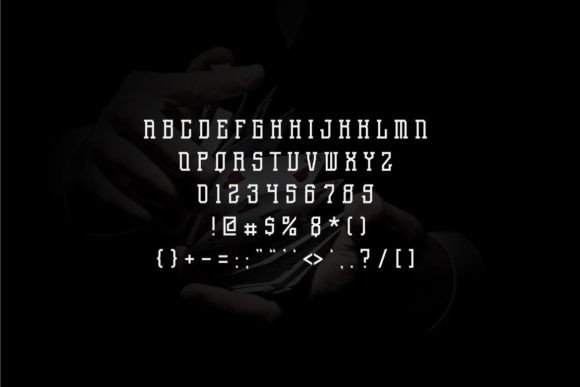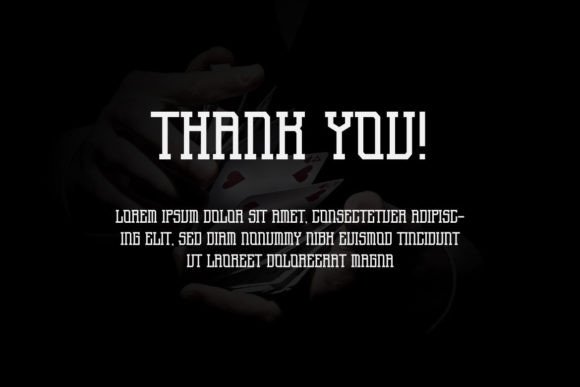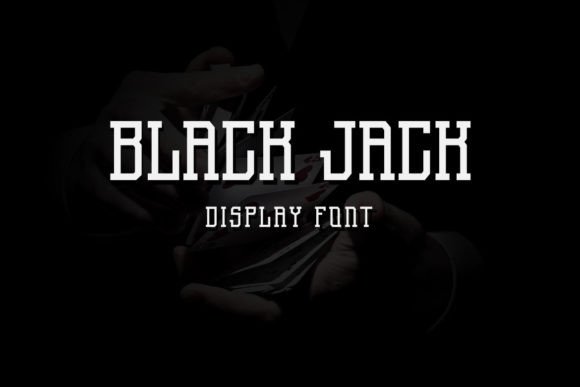
Unleash Your Creativity with Black Jack Font: A Strong and Assertive Display Font
Are you a designer or crafter looking for a font that can add a touch of boldness and confidence to your creations? Look no further than the Black Jack Font. This strong and assertive display font is perfect for making a statement, and its versatility makes it a wonderful asset to your font library.
The Power of Black Jack Font
Black Jack Font is a display font that exudes strength and confidence. Its bold and assertive design makes it perfect for headlines, titles, and any other text that needs to grab attention. Whether you’re designing a logo, a poster, or a website, this font is sure to make a lasting impression.
Key Features of Black Jack Font
- Strong and Assertive Design: Black Jack Font is designed to make a statement. Its bold and assertive design makes it perfect for headlines, titles, and any other text that needs to grab attention.
- Versatility: This font is versatile and can be used for a wide range of projects, from logos and posters to websites and social media graphics.
- High-Quality Design: This font is designed with high-quality and precision, making it perfect for professional designs.
Why Choose Black Jack Font?
There are many reasons why you should choose Black Jack Font for your next project. Here are a few:
- Makes a Statement: This font is designed to make a statement and grab attention.
- Perfect for Headlines and Titles: Black Jack Font is perfect for headlines and titles, making it a great addition to your font library.
- Versatile: This font can be used for a wide range of projects, making it a great investment for designers and crafters.
- Experiment with Different Sizes and Colors: Don’t be afraid to experiment with different sizes and colors to find the perfect look for your project.
Tips and Tricks for Using Black Jack Font
Here are a few tips and tricks for using Black Jack Font:
- Use it for Headlines and Titles: Black Jack Font is perfect for headlines and titles, so use it to make a statement.
- Pair it with Other Fonts: You can pair Black Jack Font with other fonts to create a unique and interesting look.
- Experiment with Different Colors: Don’t be afraid to experiment with different colors to find the perfect look for your project.